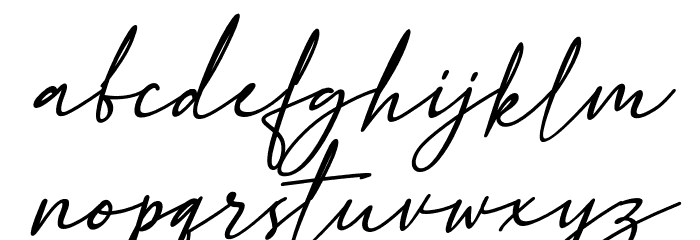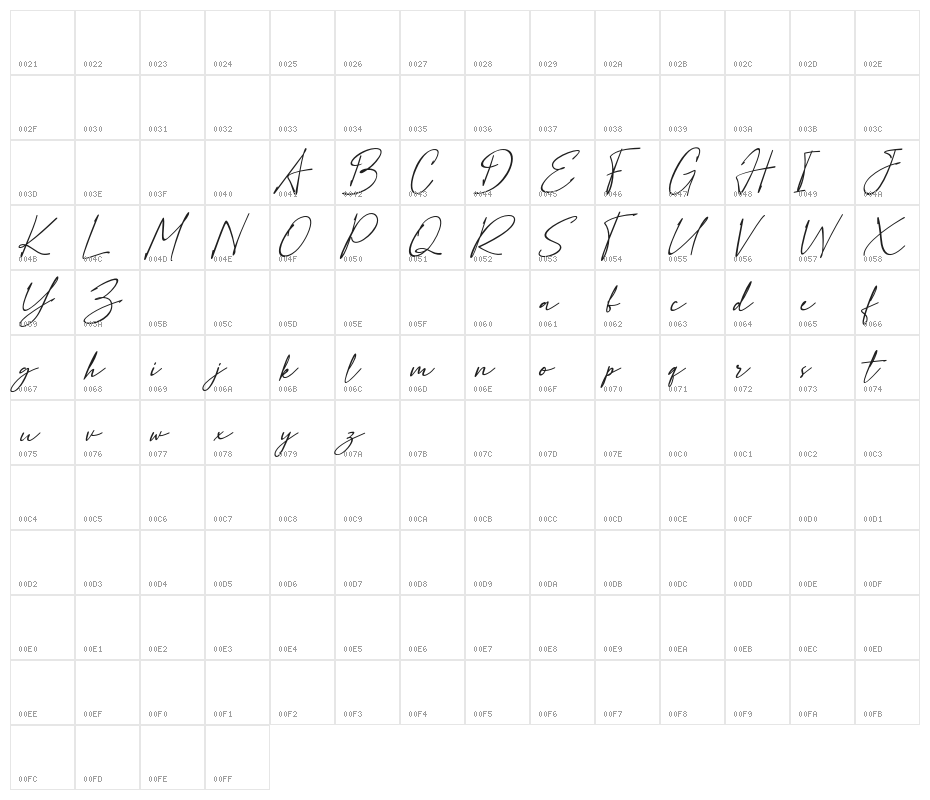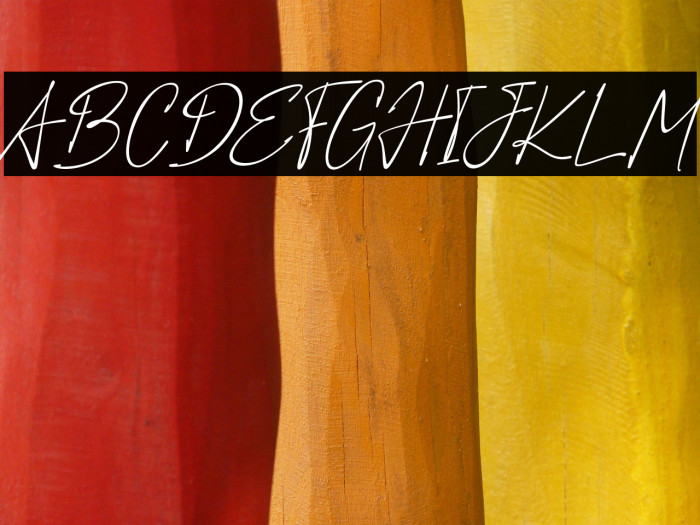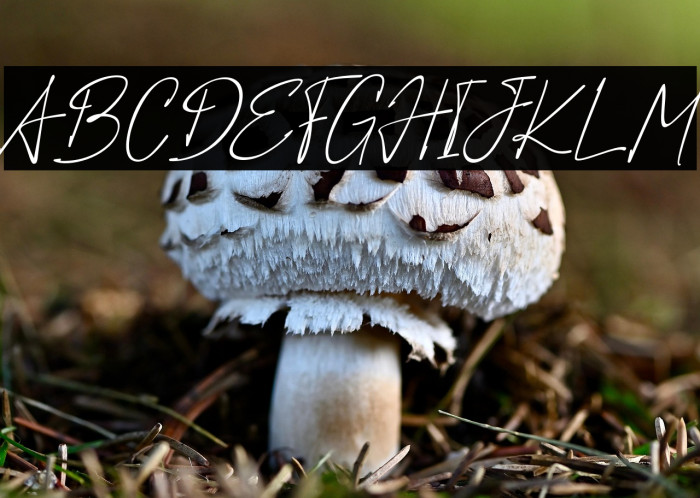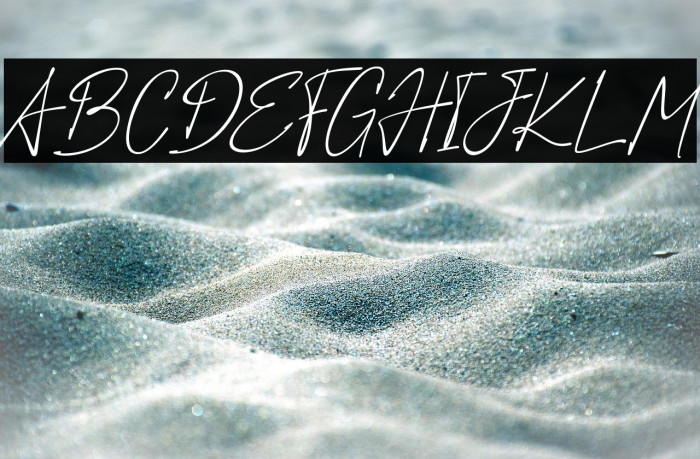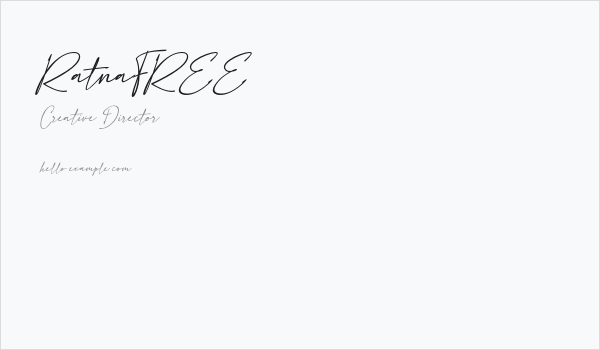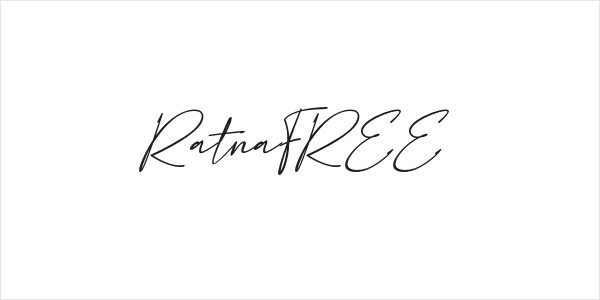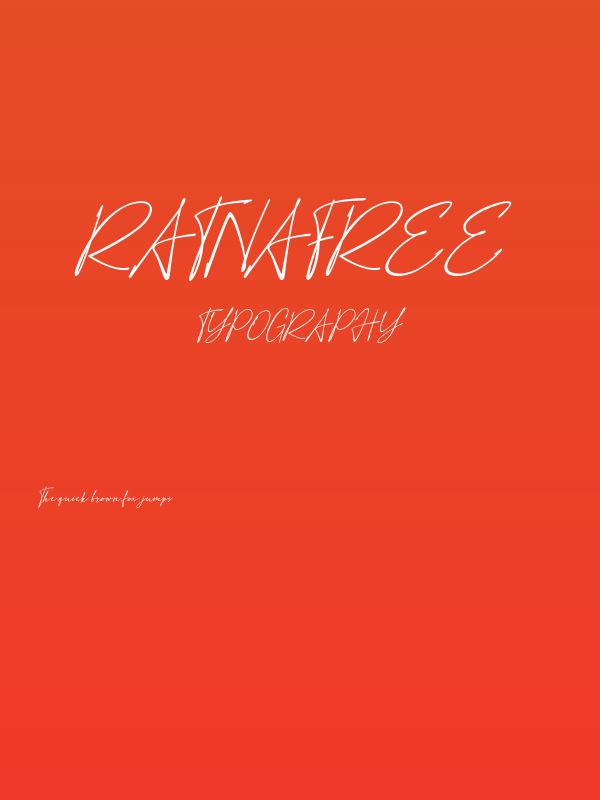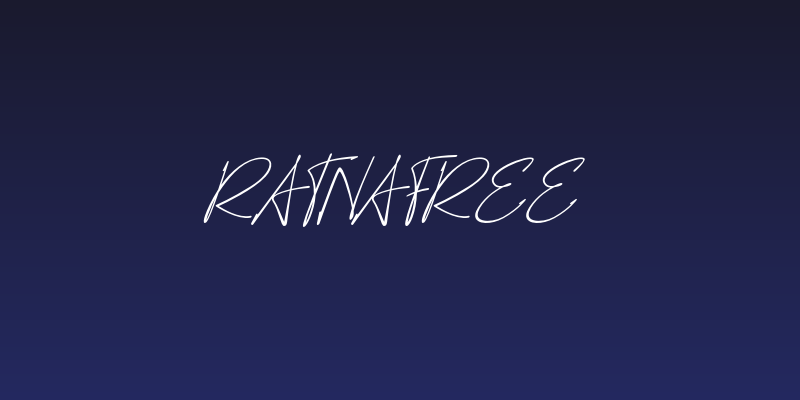
RatnaFREE Font
This font features a flowing, cursive style that mimics elegant handwriting. The uppercase letters are tall and slender, with a slight slant that adds a dynamic feel. The lowercase letters are more rounded and connected, creating a seamless flow between characters. The strokes vary in thickness, providing a natural, handwritten appearance. This font is perfect for projects that require a personal touch, such as invitations, greeting cards, or branding materials. Its graceful curves and stylish flair make it suitable for both formal and casual designs.
A cursive, handwritten-style font with elegant, flowing characters.
- Font: RatnaFREE
- Proposed Projects: Ideal for invitations, greeting cards, branding, and personal projects.
- Category: Script
- Overall Style: Elegant, Handwritten
- Use Case: Headlines, Logos, Invitations